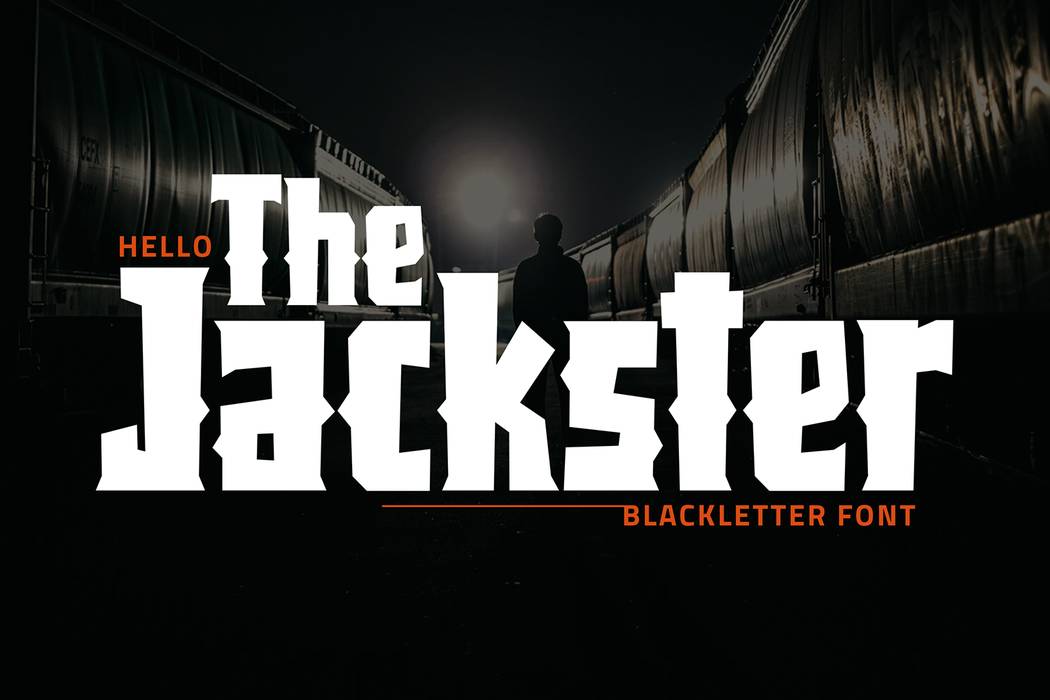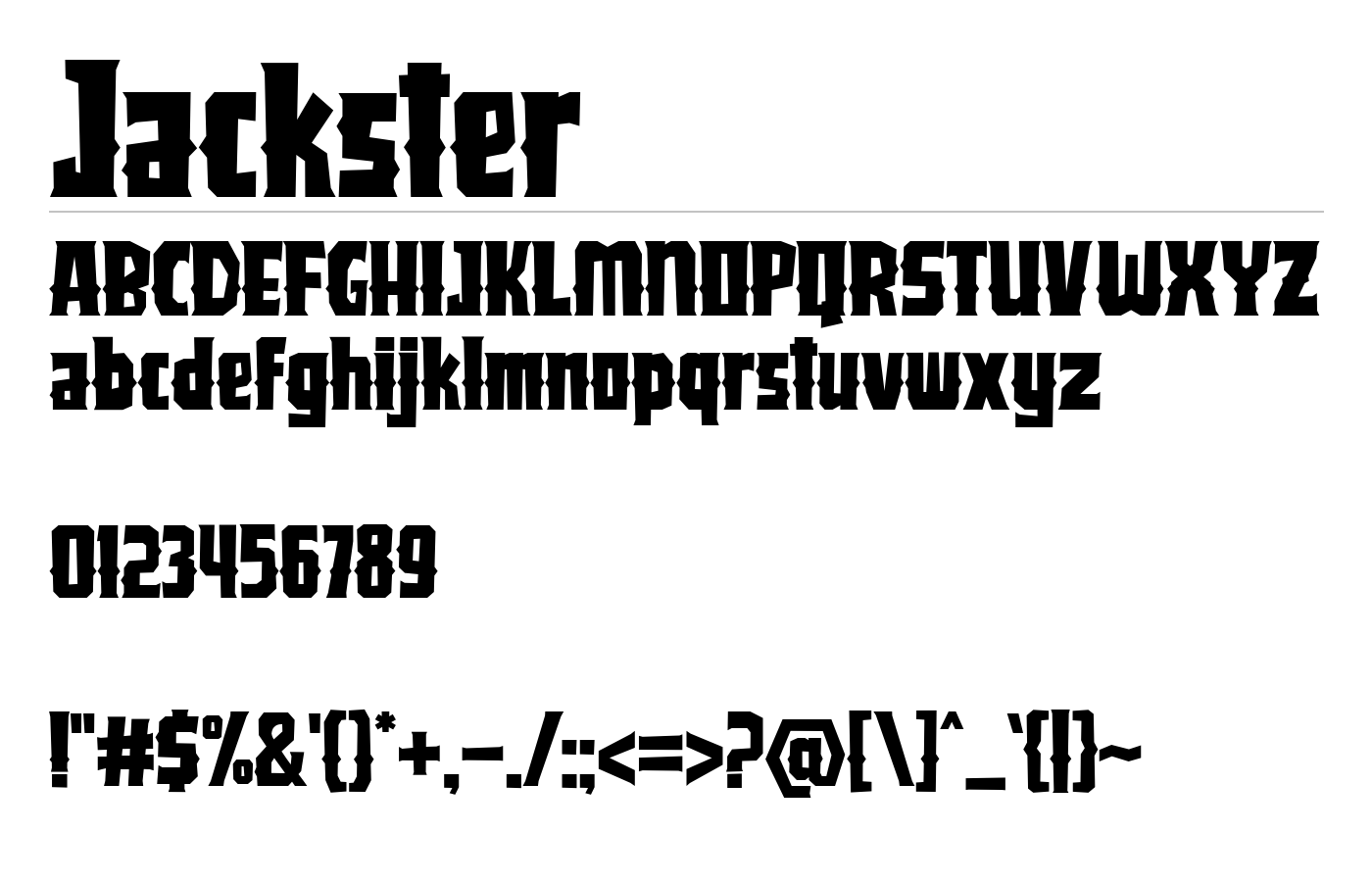
Jackster is a bold, condensed serif font with a strong, rugged character and sharp, blocky serifs that give it a vintage, handcrafted feel. Its high contrast strokes and distinctive letter shapes make it ideal for attention-grabbing headlines, posters, and branding projects that want to convey strength, uniqueness, and a touch of old-school charm. This font excels in design contexts seeking a bold statement with a slightly edgy and playful personality.
Jackster Font